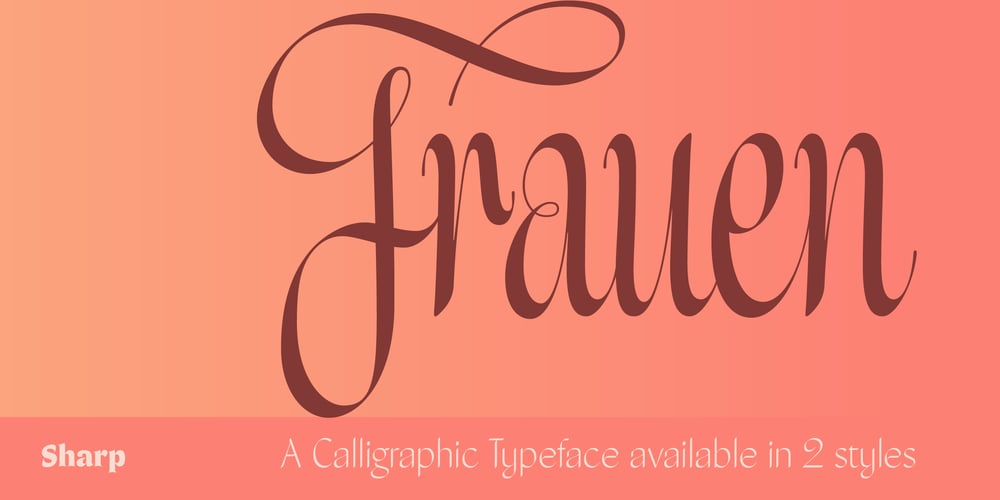
Frauen Font Family was designed by Lucas Sharp and published by Monotype. Frauen contains 2 styles and family package options. Frauen is an ode to German calligraphy. The script style is based on lettering found on the cover of an Berlin almanac published in 1945; the roman is based on the calligraphy of Friedrich Neugebauer. They share a common weight, x-height, and nib angle, and when used together behave as if the same calligrapher penned them both in the same sitting; as such, the uppercase and lowercase of each style can be used interchangeably with one another.